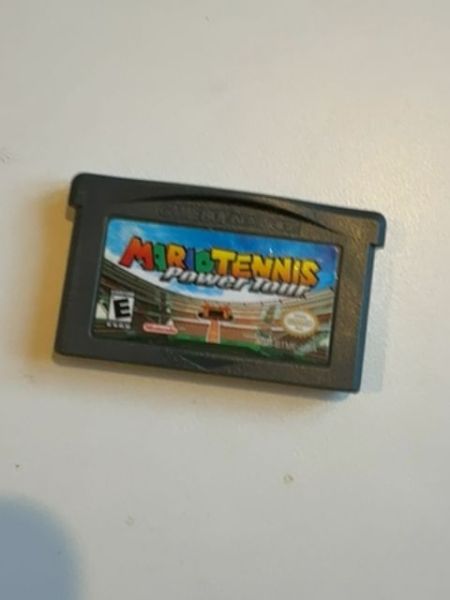
Mario Tennis: Power Tour
A sports video game focused on tennis, allowing players to experience various tournaments and challenges with familiar characters.
2005
The typography on the label uses bold and playful fonts, reflective of the game's vibrant and energetic nature. The title 'Mario Tennis' uses a blocky and colorful style, with each letter distinctively shaded, while 'Power Tour' is written in a slanted, dynamic script that suggests movement and excitement.
The packaging is a compact and durable plastic cartridge, typical for Game Boy Advance games. The label features colorful graphics with a depiction of a tennis court in the background, creating an engaging visual tied to the game's theme.
- Released for the Game Boy Advance.
- Features popular characters from the Mario series.
- Published by Nintendo.